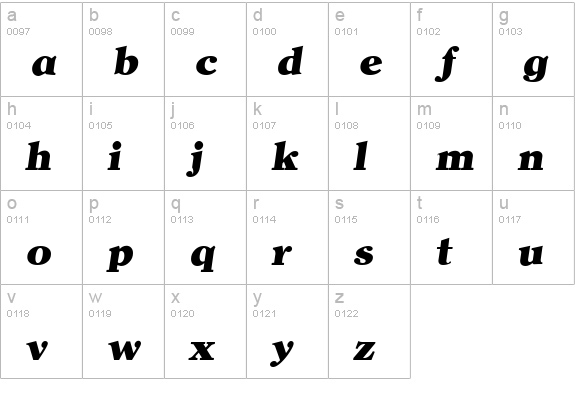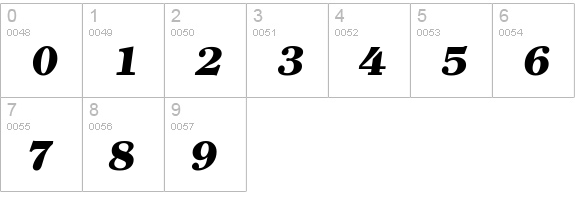
ClearlyRomanHeavy kursiv Font Details
ClearlyRomanHeavy kursiv is a stunning and bold font that exudes elegance and sophistication. Its distinct curves and stylish design make it a perfect choice for adding a touch of class to any project. The italicized style adds a modern and dynamic flair to the classic Roman font. This font is not only visually striking but also highly versatile, making it suitable for a wide range of design applications such as logos, headlines, posters, and more. Whether you're working on a branding project or creating eye-catching promotional materials, ClearlyRomanHeavy kursiv is sure to make a lasting impression. Best of all, this exceptional font is available for free download at FontsMarket.com. So, don't miss out on the opportunity to enhance your designs with this exquisite typeface. Download ClearlyRomanHeavy kursiv today and elevate your creations to new heights of style and sophistication.